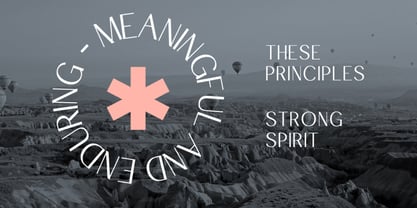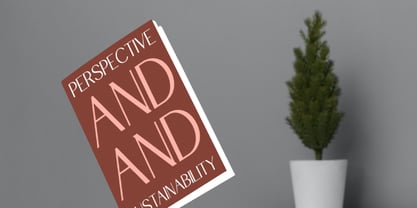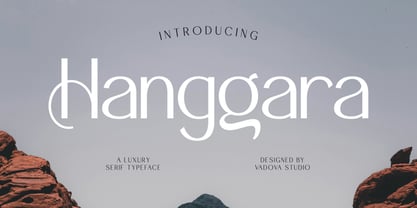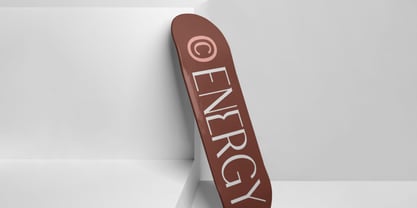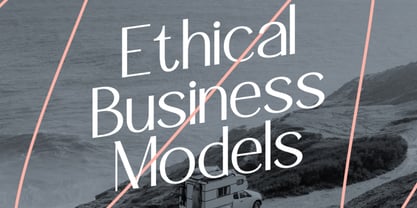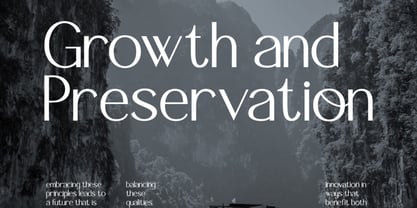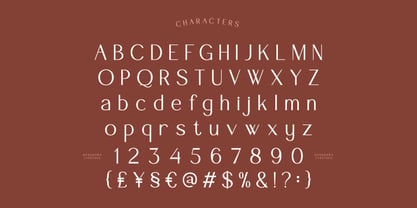
Hanggara
by Vadova Std
The Hanggara Font Family and published by Vadova Std. Hanggara contains 1 styles. More about this family
Hanggarra is a modern luxury serif typeface that blends elegant proportions with smooth, refined curves and distinctive ligature details. Its clean structure and subtle contrast create a sophisticated visual tone that feels premium, timeless, and editorial-ready. Designed with balanced uppercase and lowercase characters, Hanggarra delivers clarity and elegance across both display and text applications. The font supports multilingual characters, numerals, symbols, and refined punctuation for professional typography needs. Luxury brand identity, editorial design, fashion branding, beauty and lifestyle projects, logo modern elegant concepts, premium packaging, magazine layouts, wedding fonts applications, feminine branding, signature logo, corporate and professional typography, upscale marketing materials, and modern serif-based visual systems.